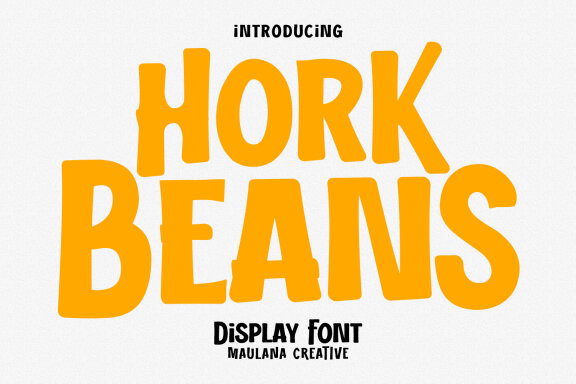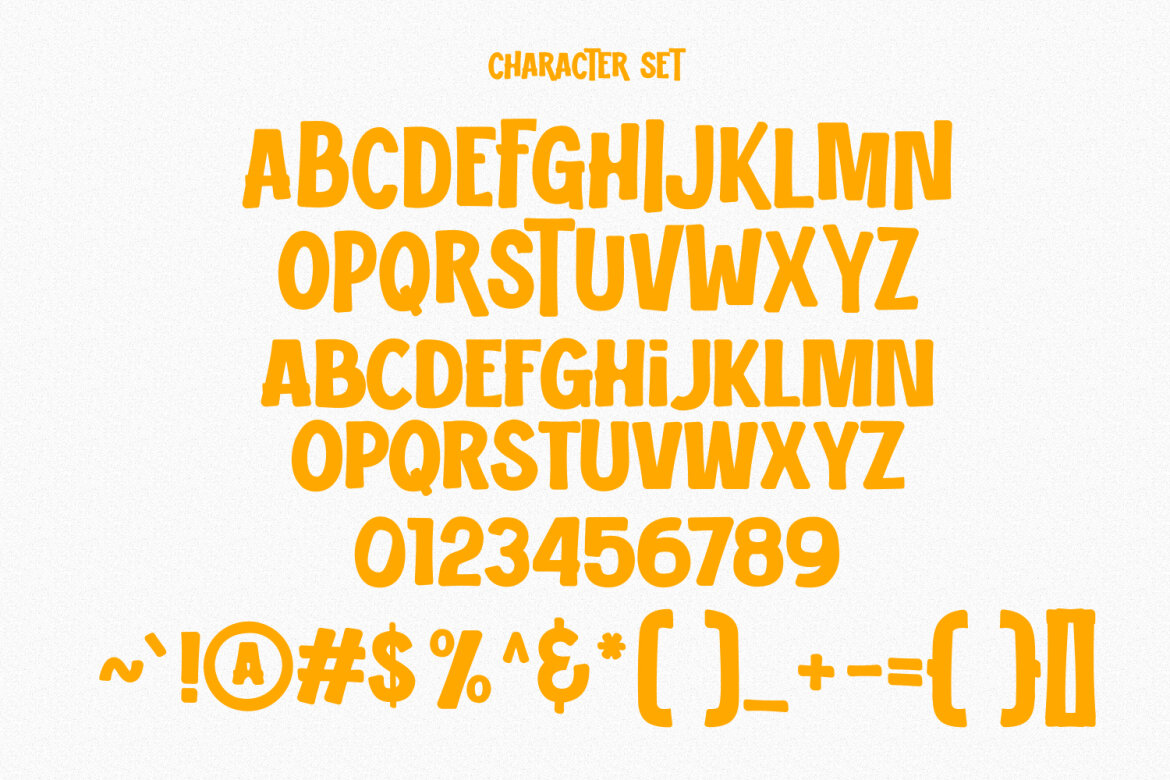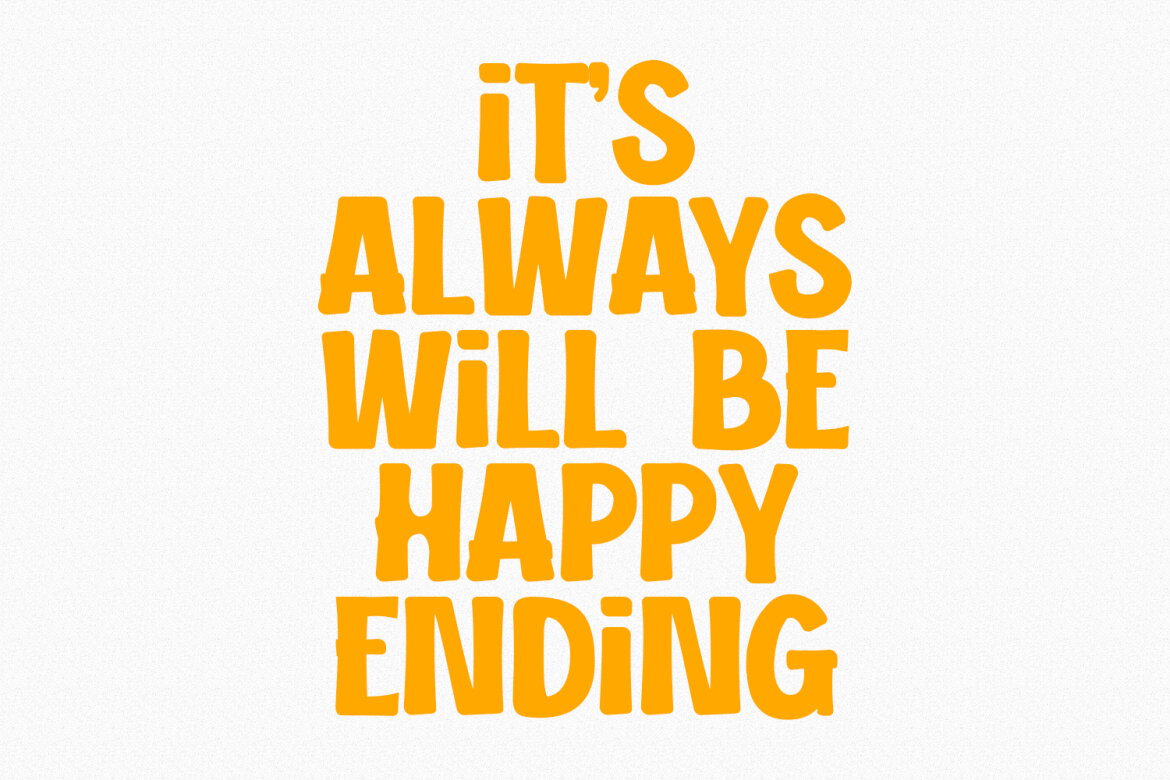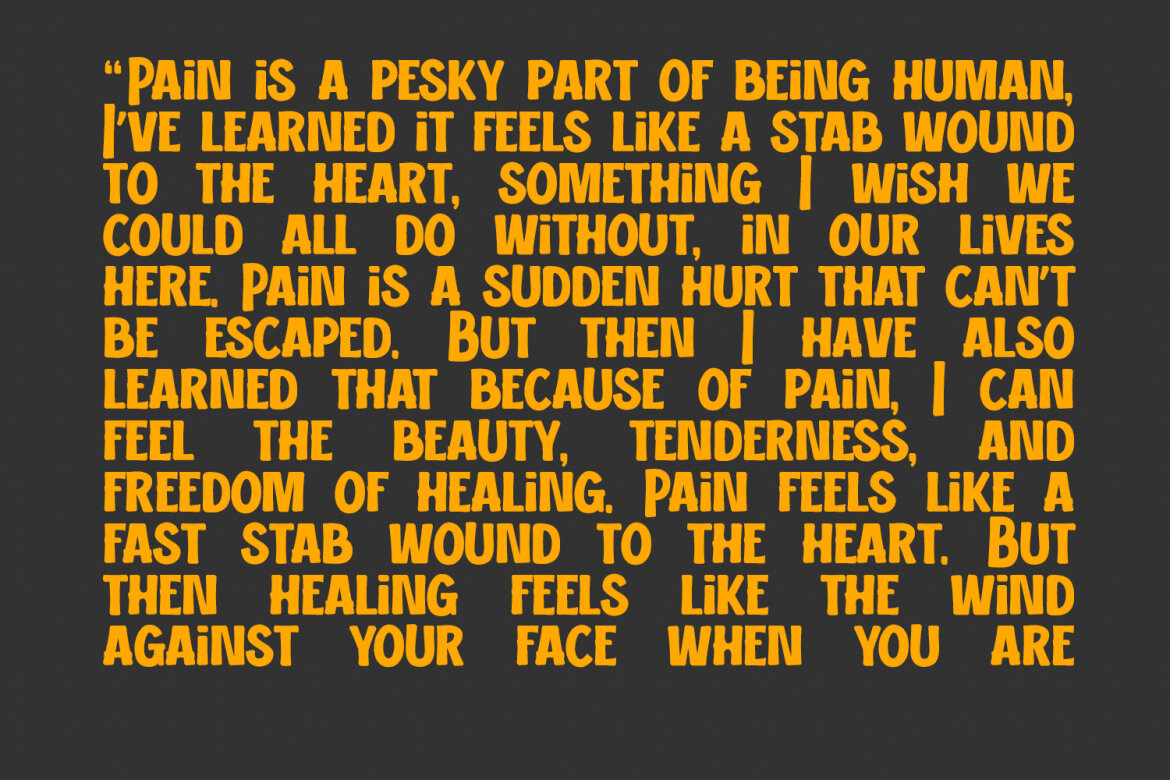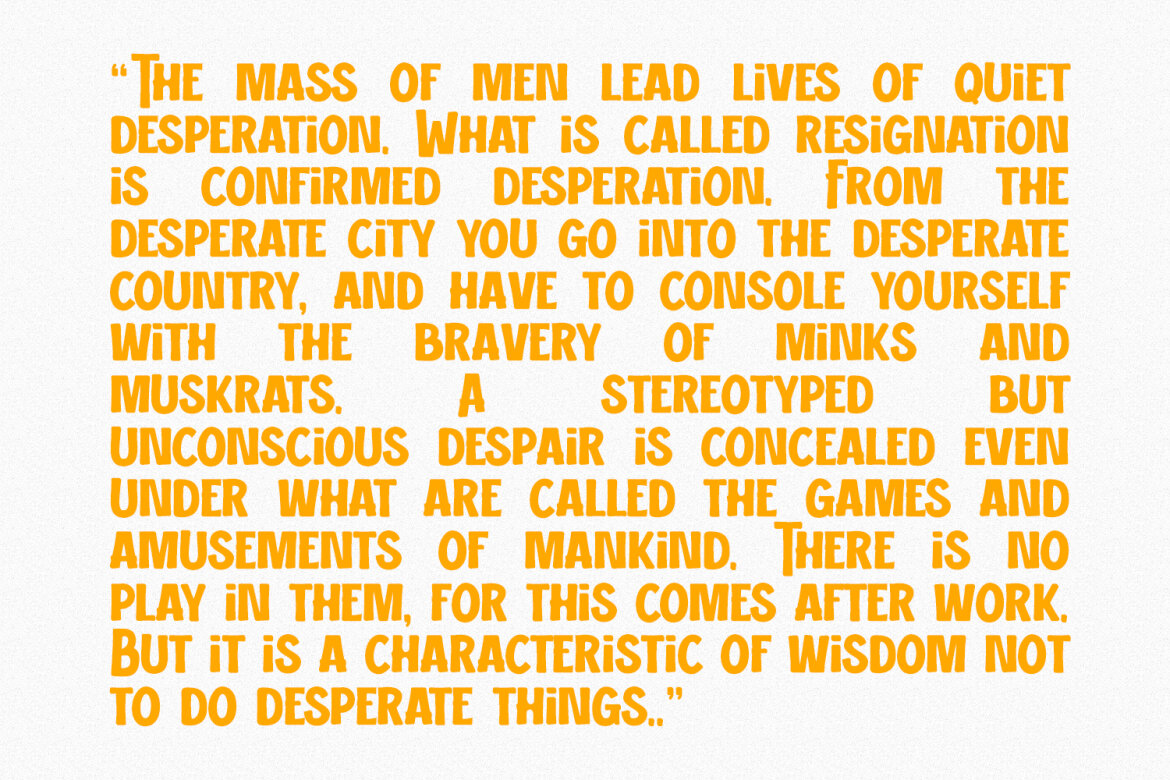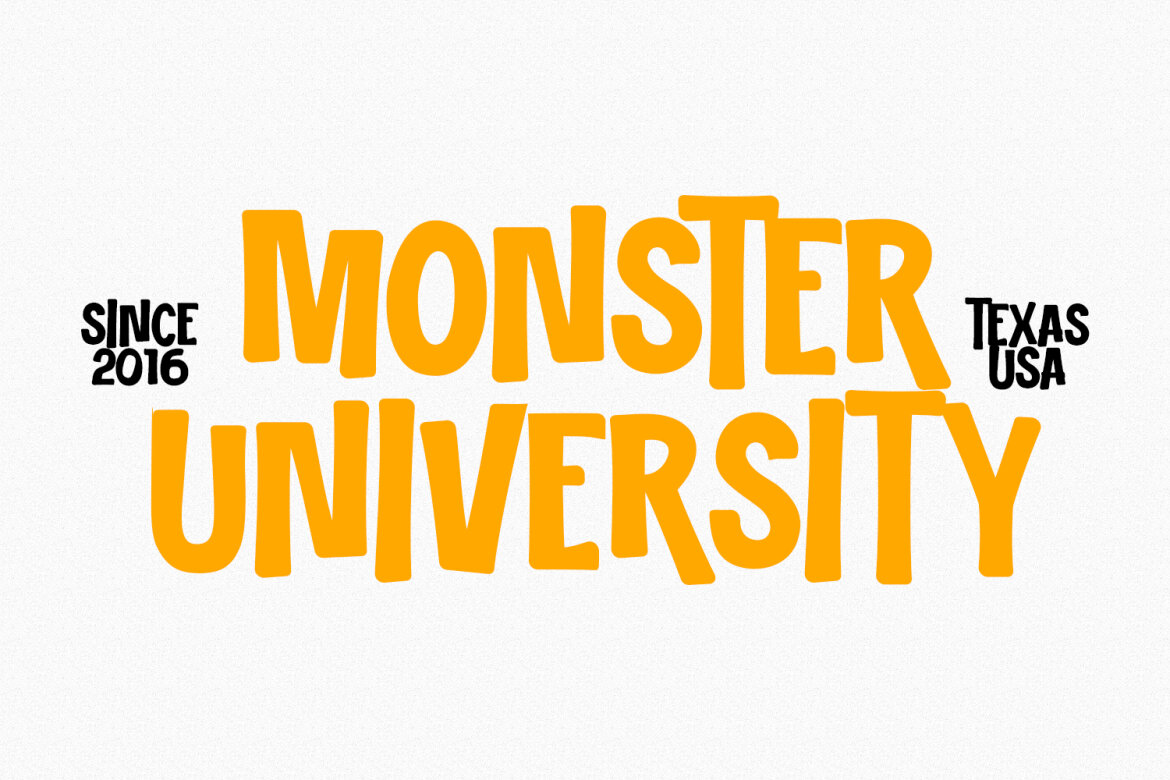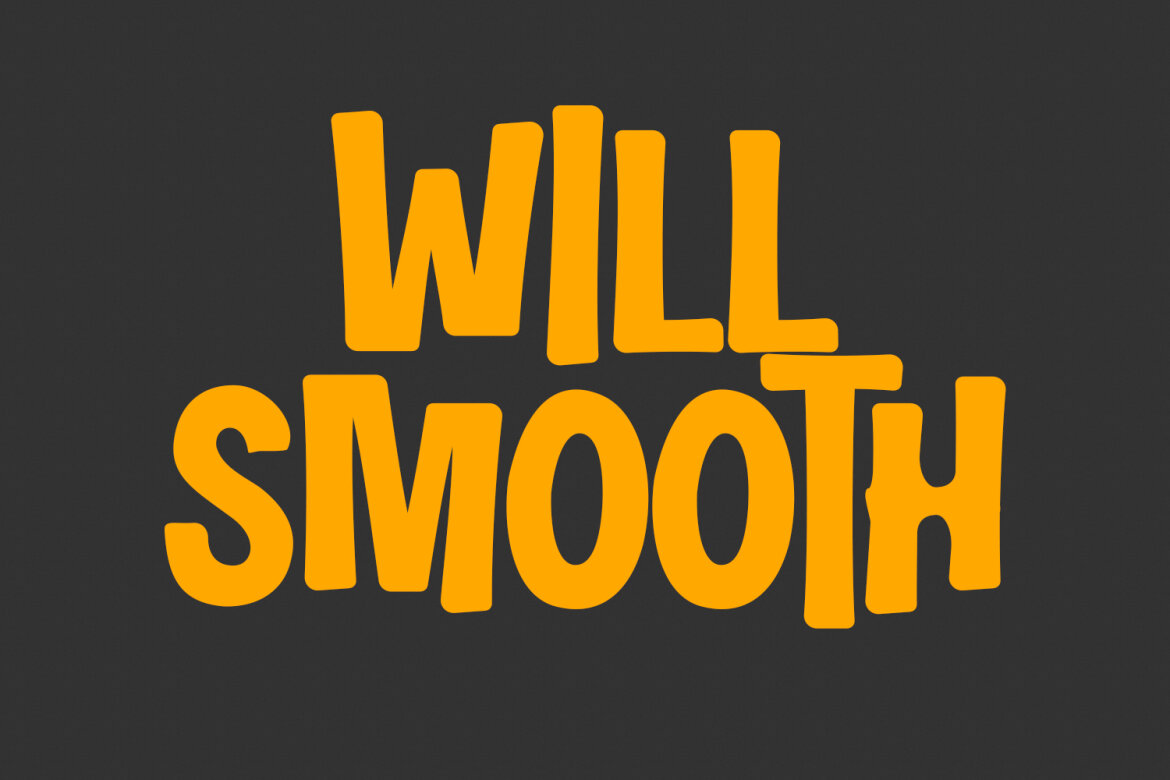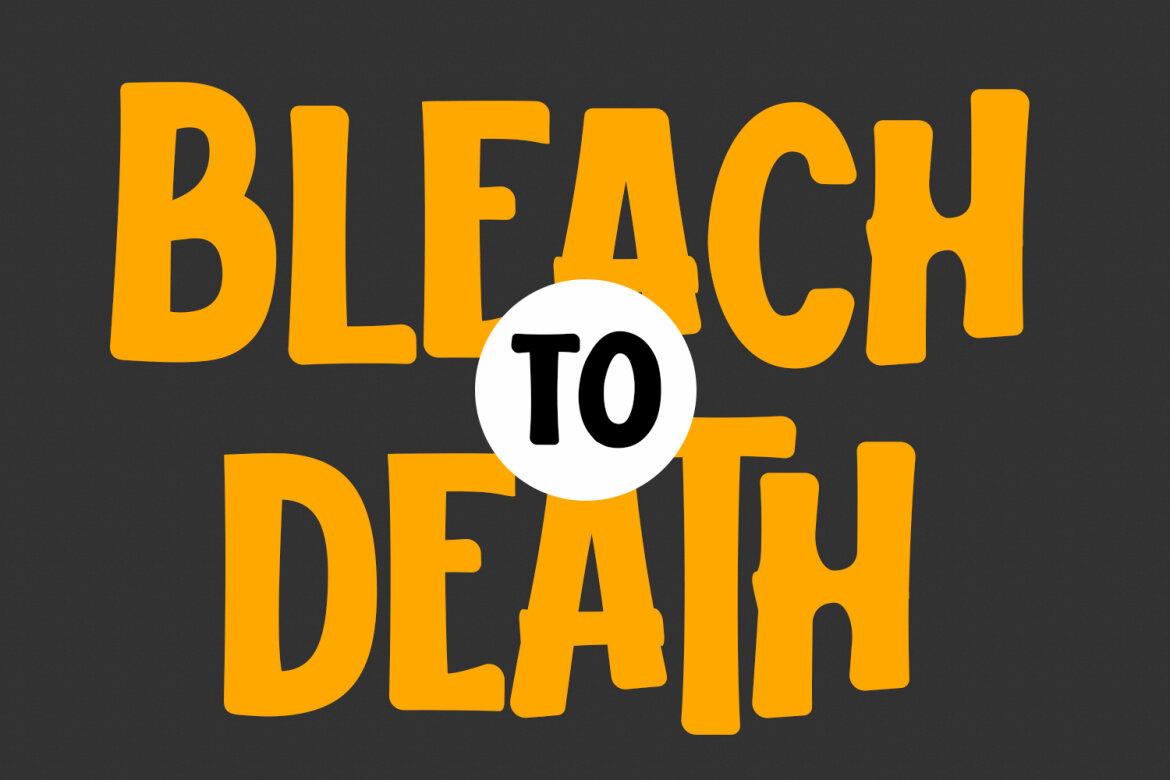
Hork Beans Handwritten FREE Font
Hork Beans
Hork Beans is a simply casual handwritten font. With medium low contrast stroke, fun character with a bit of ligatures and alternates. To give you an extra creative work. Hork Beans font support multilingual more than 100+ language. This font is good for logo design, Social media, Movie Titles, Books Titles, a short text even a long text letter and good for your secondary text font with sans or serif. Make a stunning work with Hork Beans font.